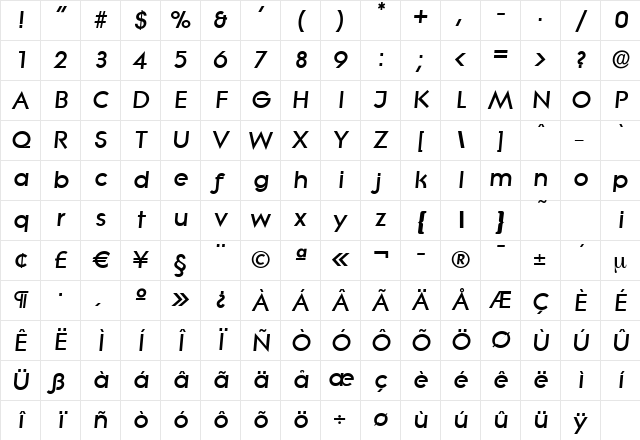
Complete BradBecker-Heavy Italic glyph index. Displaying only characters natively supported by BradBecker-Heavy Italic font.
BradBecker-Heavy is a composed and adaptable typeface that performs quietly and consistently across a wide range of design contexts. The slanted form adds forward momentum and visual energy.